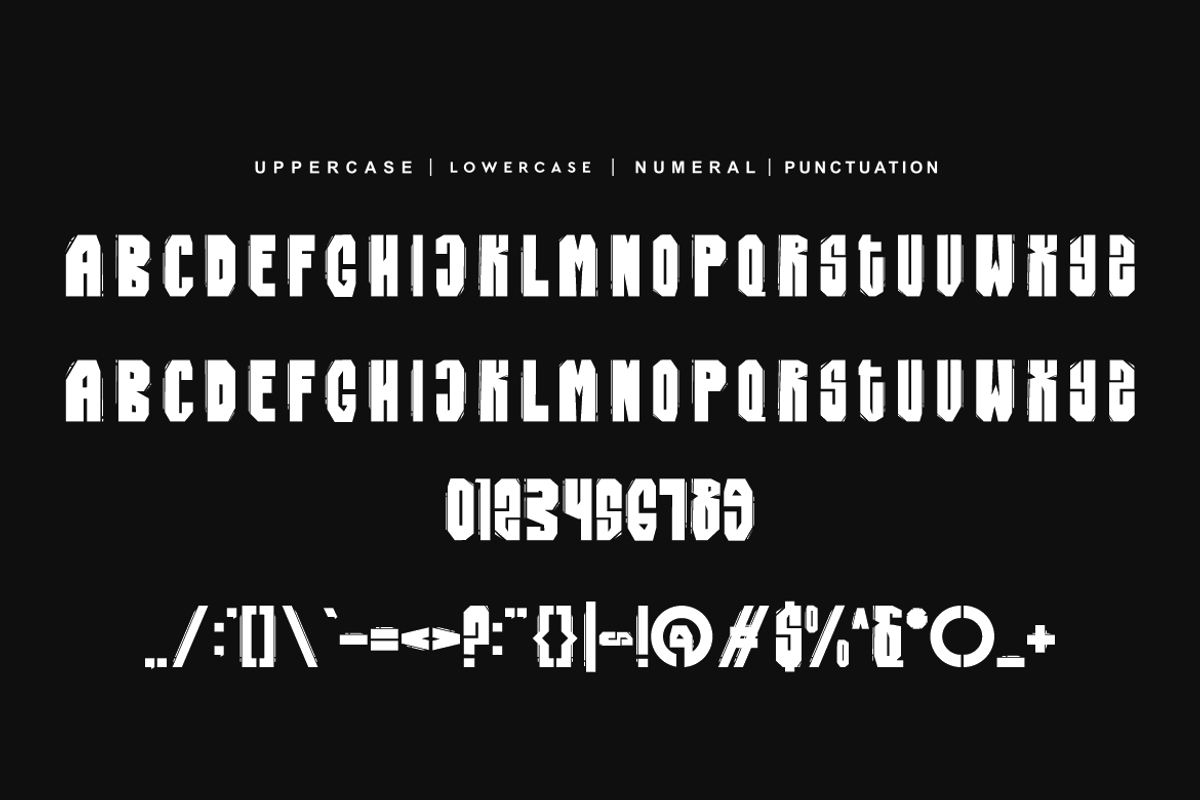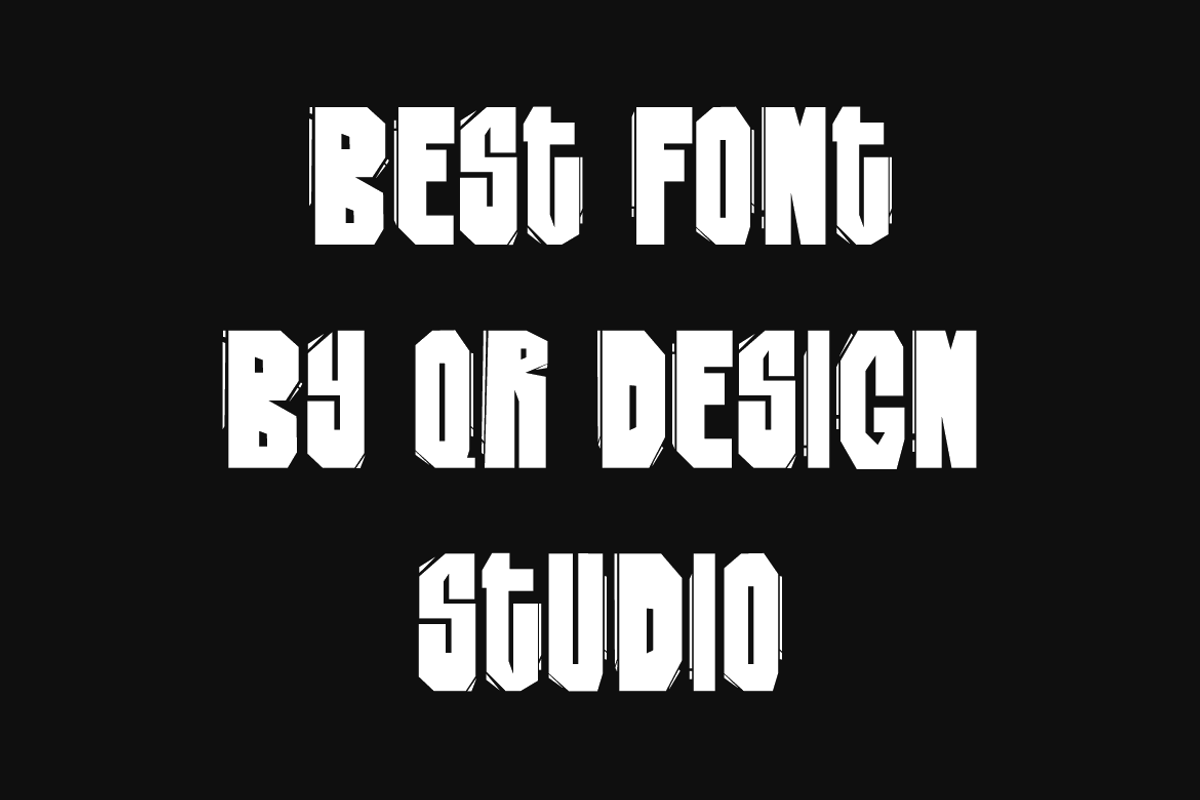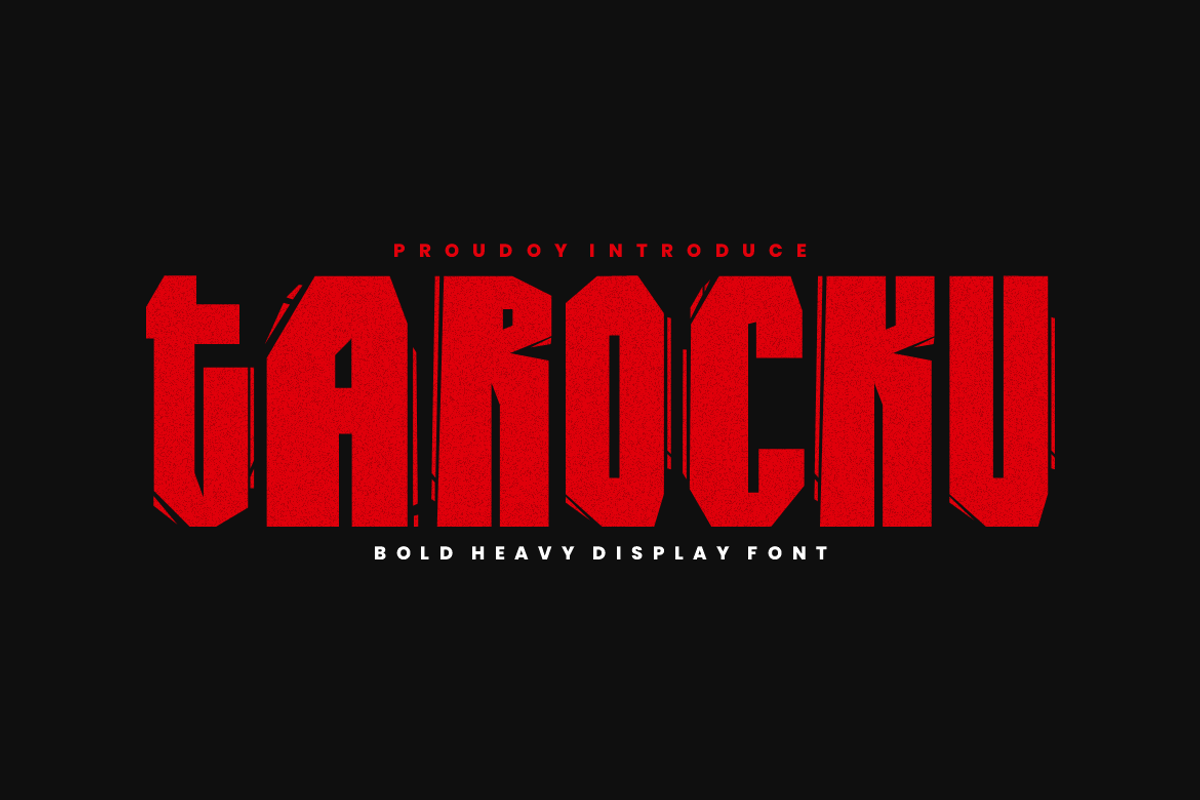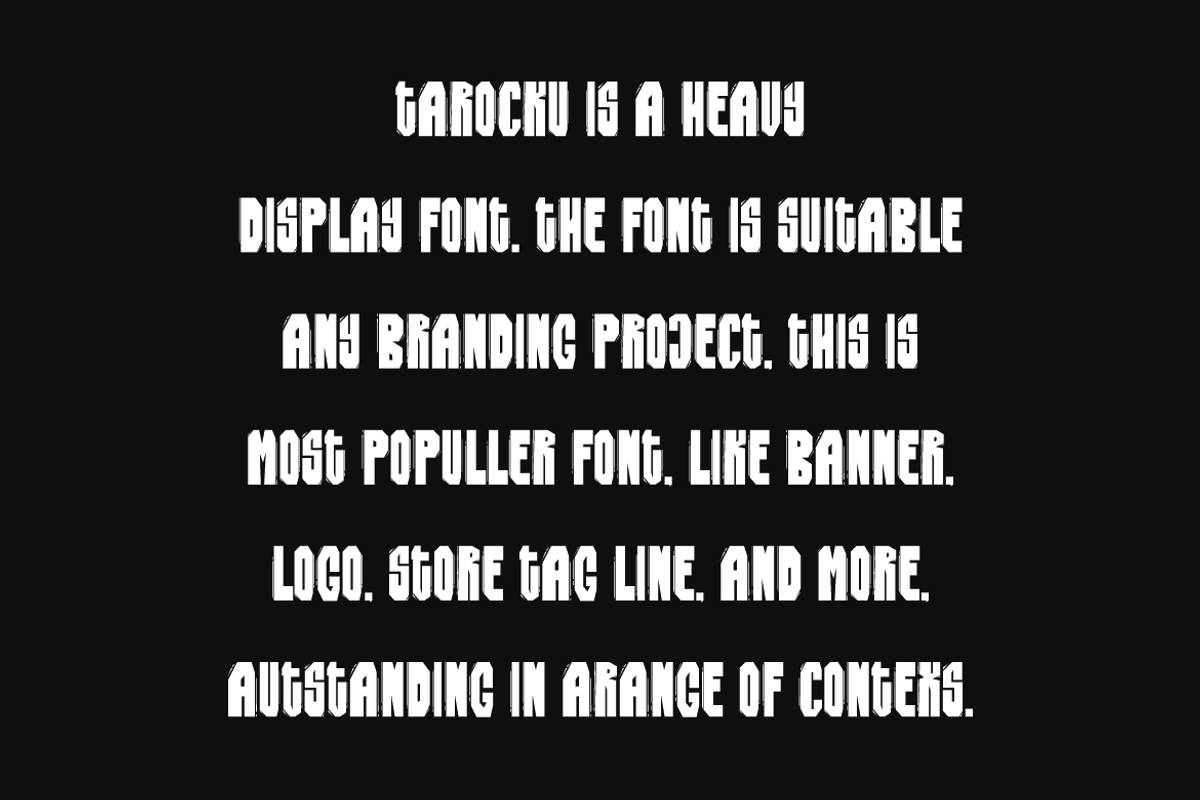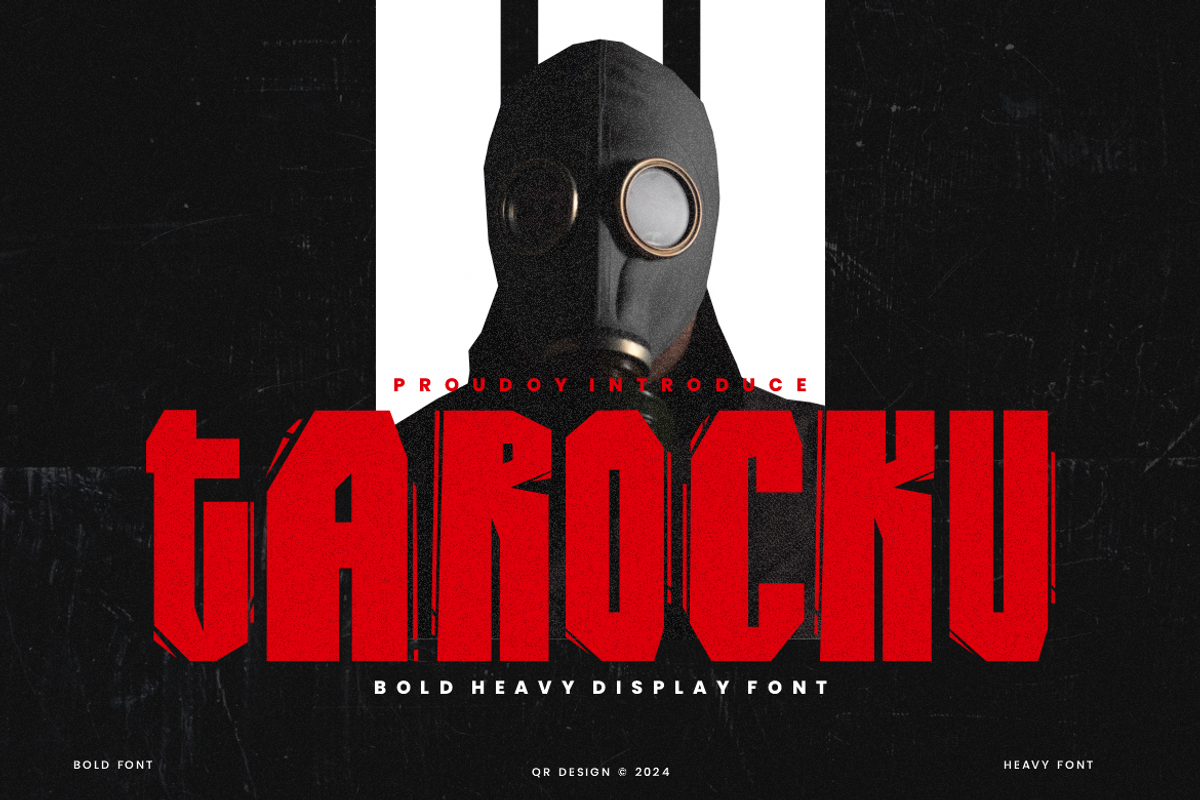
Tarocku - Bold Heavy Display Font
Tarocku - Bold Heavy Display Font is a bold and authentic display font. The font is suitable for any branding project like poster, logo, sport, and many more. Outstanding in a wide range of contexts.